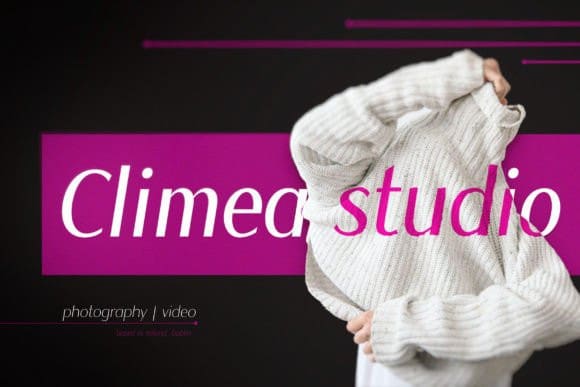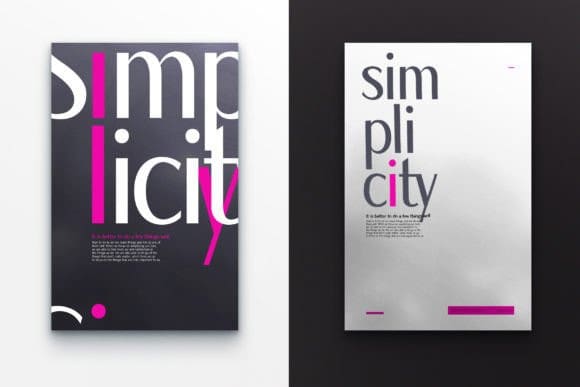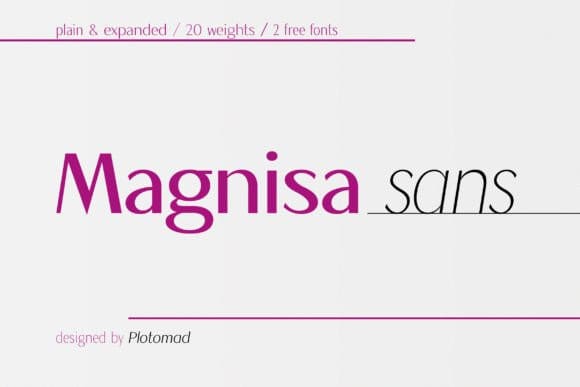
Magnisa Sans Font
Magnisa Sans Font is an exquisite and chic sans-serif font that is a perfect blend of elegance and modernity. With a clean and sleek design, this font exudes sophistication and style, making it perfect for luxury branding, editorial design, and other high-end projects. Its versatile nature makes it a go-to choice for any designer looking to create a polished and refined look.